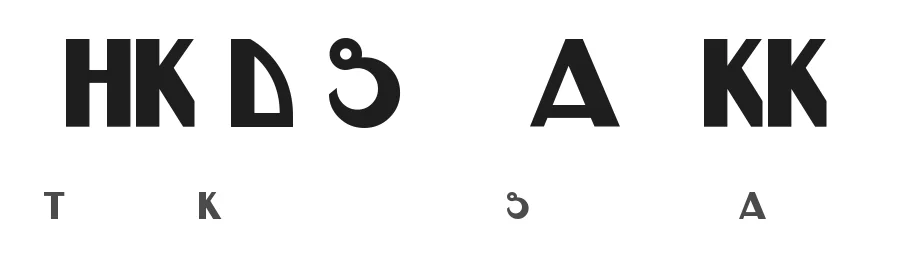
About Dwiggins Initials KK Font
Dwiggins Initials is based on a 1930 unnamed sketch by W.A. Dwiggins. Initial capitals only.
| Designer | W.A. Dwiggins |
Dwiggins Initials KK Font is a decorative font that shines as a display or heading face. Pair it with a clean sans-serif or serif font for body text β the contrast creates a clear hierarchy while the two styles stay balanced and easy to read.
Dwiggins Initials KK Font
by koeiekat